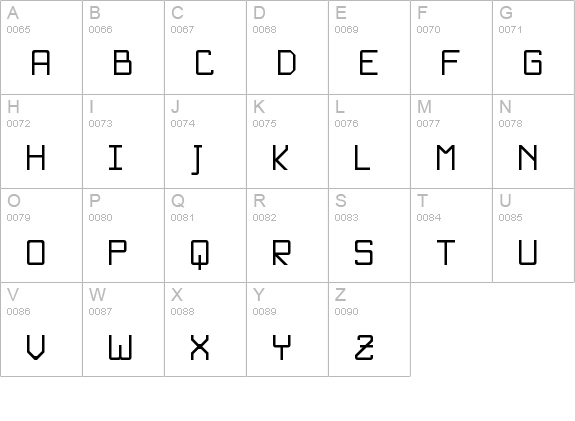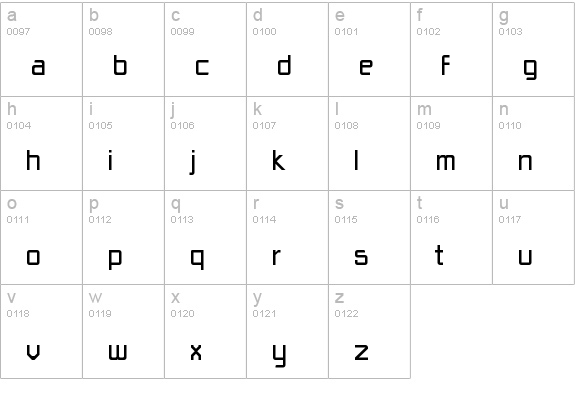
Básica-Unicode Regular Font Details
Básica-Unicode Regular is the standard, neutral variant in the Básica typeface family \xE2\x80\x94 well suited to general body text, paragraphs, and standard typographic work.
Básica-Unicode Regular font is a versatile and stylish typeface that is perfect for any design project. With its clean and modern look, it adds a touch of elegance to any text or headline. This font is meticulously crafted, ensuring each character is visually appealing and legible across various platforms and devices. One of the standout features of the Básica-Unicode Regular font is that it is free to download. This means that designers, students, and anyone in need of a high-quality font can access it without any cost. Whether you're working on a personal project or a professional assignment, this font provides a cost-effective solution without compromising on the quality. To obtain this font, simply visit FontsMarket.com, where it is freely available for download. FontsMarket.com is a trusted source for a wide range of fonts, and their collection includes some of the best typefaces in the industry. By offering Básica-Unicode Regular font for free, they enable users to enhance their designs with a premium font without breaking the bank. With its broad character set, Básica-Unicode Regular font supports multiple languages, making it a versatile choice for various global projects. From website design to branding materials, this font effortlessly adapts to different contexts, ensuring a consistent and professional appearance. The Básica-Unicode Regular font is designed with meticulous attention to detail, ensuring optimal readability and aesthetic appeal. Its well-defined letterforms and balanced proportions make it suitable for both large and small text sizes, guaranteeing a pleasant reading experience. Whether you're a professional designer or someone who enjoys experimenting with typography, Básica-Unicode Regular font is a must-have in your collection. Its versatility, elegance, and the fact that it is freely available for download at FontsMarket.com, make it an ideal choice for projects of any scale. Elevate your designs and make a lasting impression with the Básica-Unicode Regular font.